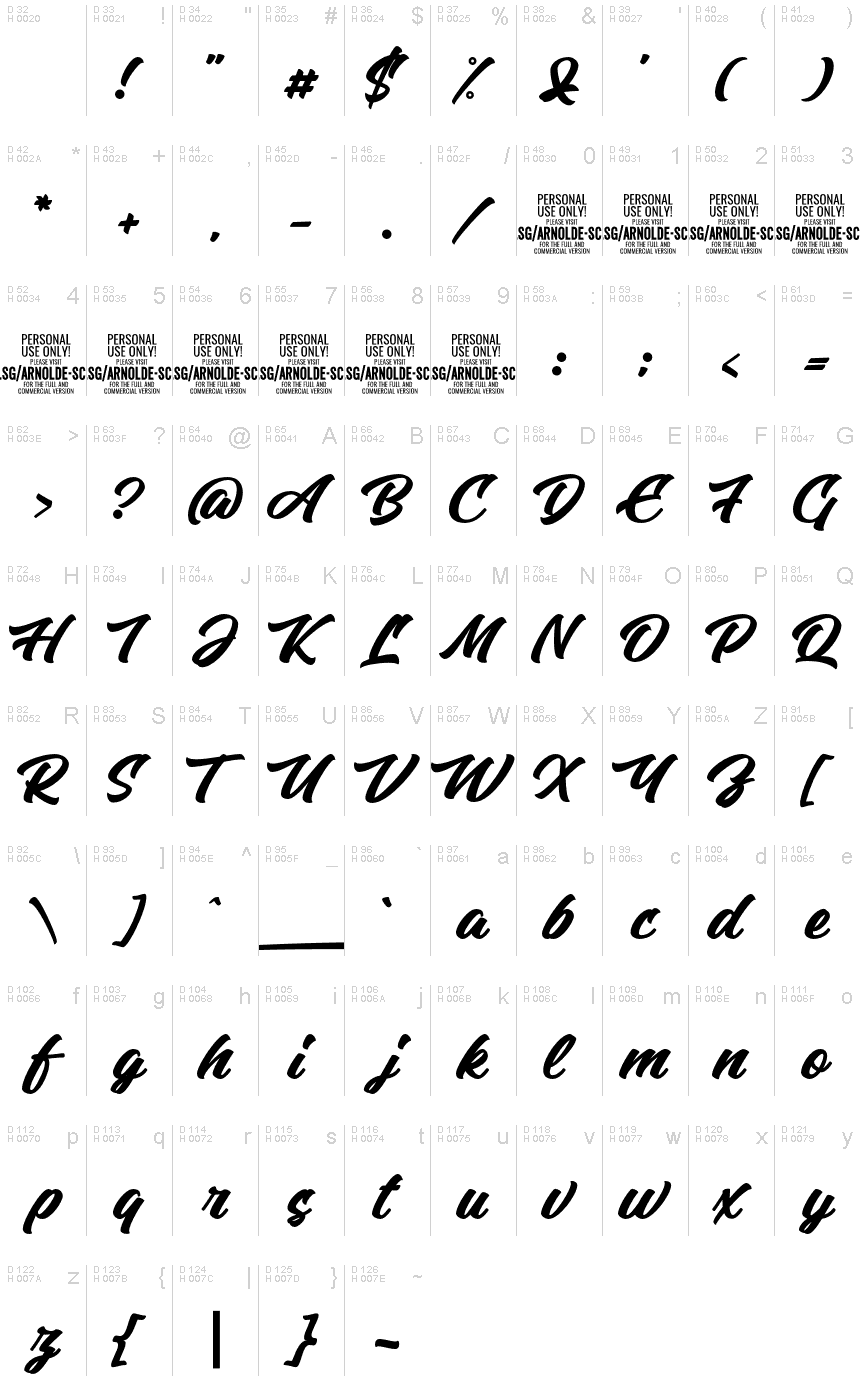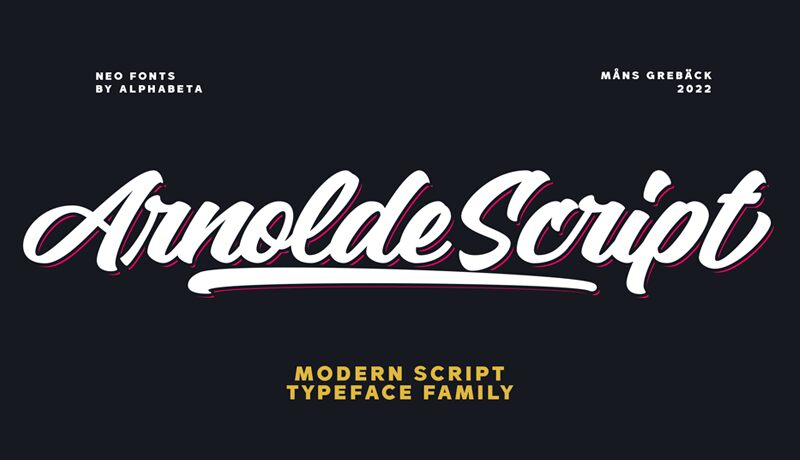
Arnolde Script by Mans Greback is a bold marker font that exudes creativity and originality. Its thick strokes and playful curves make it perfect for projects that require a touch of whimsy, such as greeting cards, invitations, or children's book covers. This typeface adds an authentic hand-drawn flair to any design, making it ideal for branding projects or quirky logos. With its bold weight, Arnolde Script is perfect for headlines or titles that need to stand out. Let your inner artist shine with Arnolde Script – the perfect font to add personality and charm to any project.
Arnolde Script is a heavy script typeface, drawn to emit a strong personality. It has a bold expression and confident movements, and is perfect for a modern script logo.
Use underscore _ anywhere in a word to make an underline.
Example: Love_letter
Use multiple underscores to make different swashes.
Example: Cute_____ness
Use numbersign # after any letter to make a swash.
Example: Welcome# Back#